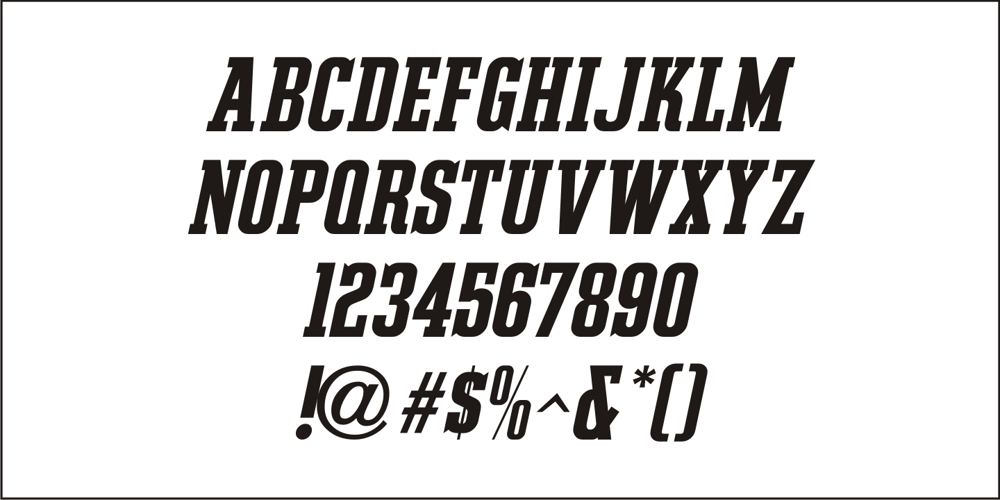
Slab Compact JNL Font Family was designed by Jeff Levine and published by Jeff Levine. Slab Compact JNL contains 2 styles and family package options. Slab Compact JNL was based on the printed title found on the box cover of a 1950s-era word games set called “Lex-O-Grams” and is available in both regular and oblique versions.